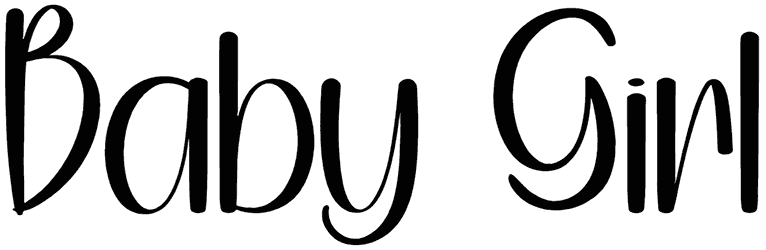
Blueberry Font
In this post, we are introducing a cartoon font named Blueberry. This font has a friendly, playful, and fun feeling to it. You can use it for cartoon names and posters, festive events, and party flyers, children’s book names, and zoo banners. This font does not contain all the characters.
I want to introduce Blueberry Layered Font, This font suitable for your design project especially for
branding packaging, lettering, and others.